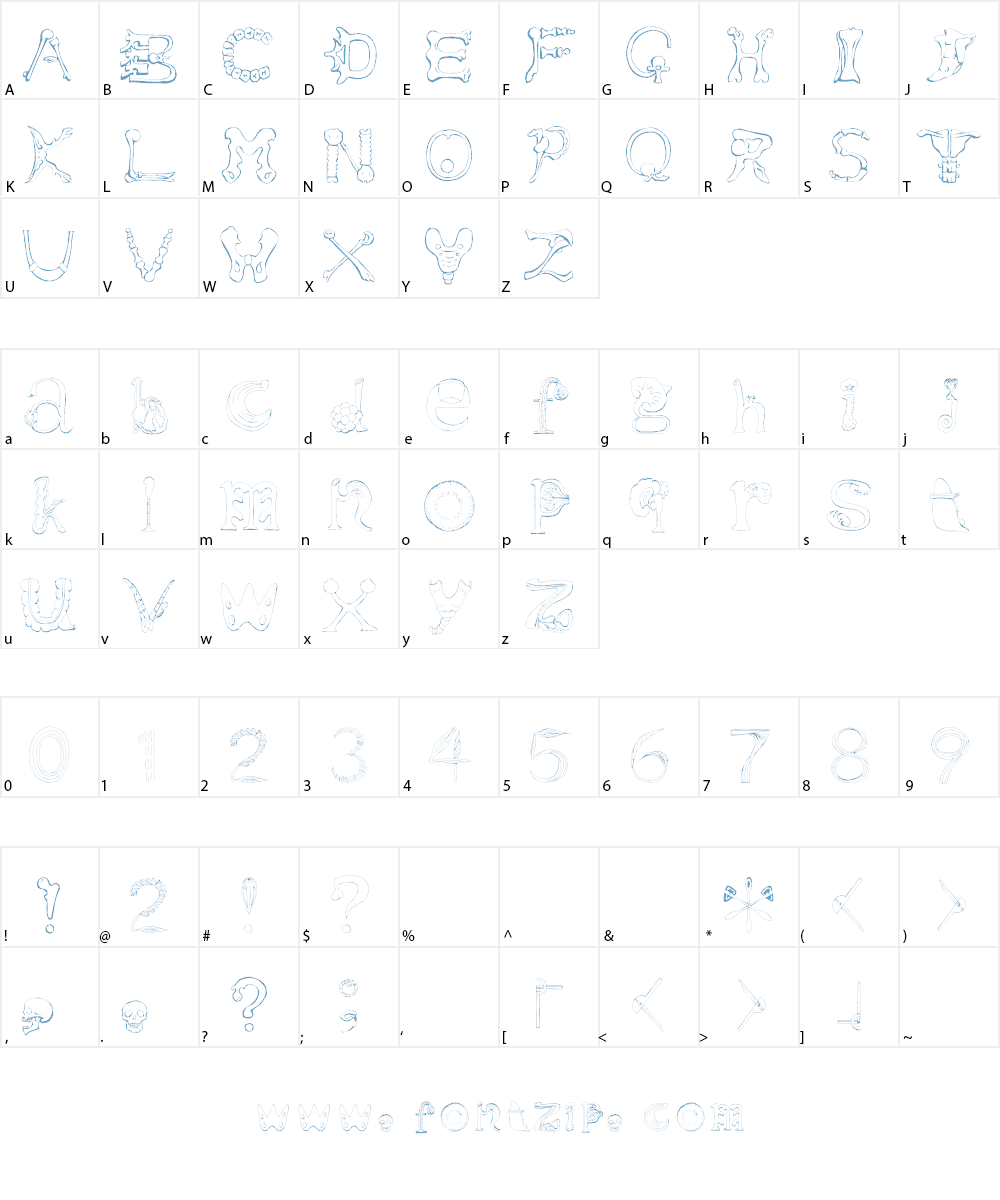
Various human anatomical parts made into letters. Capital letters are bones. Probably best not to inquire into the lower case. . . . Font name is supposed to be "HoneFont" - I have left the font as is and didn't repair this.